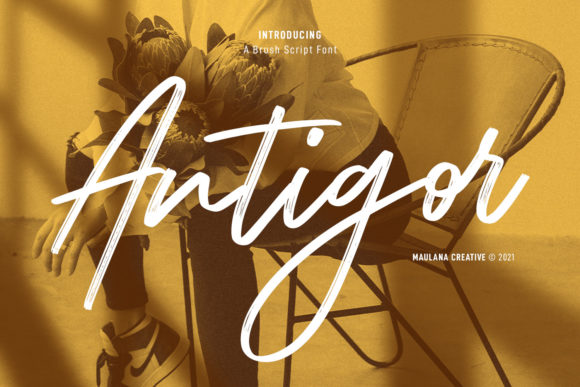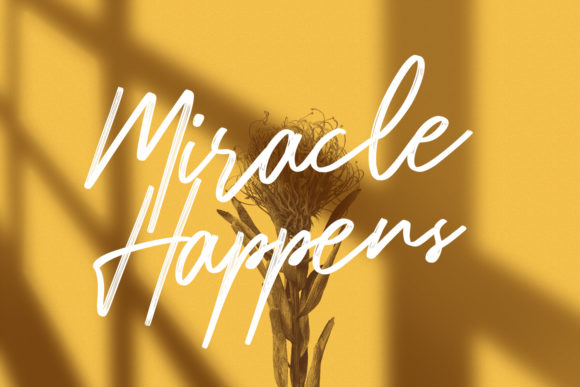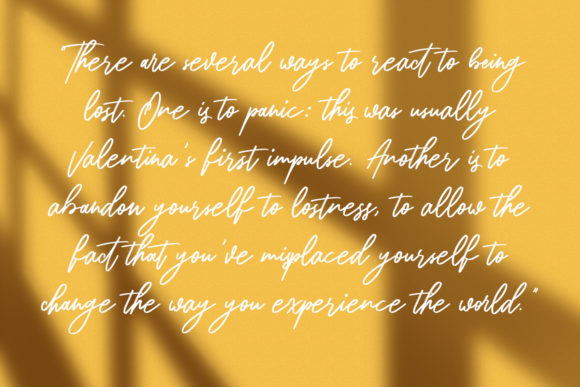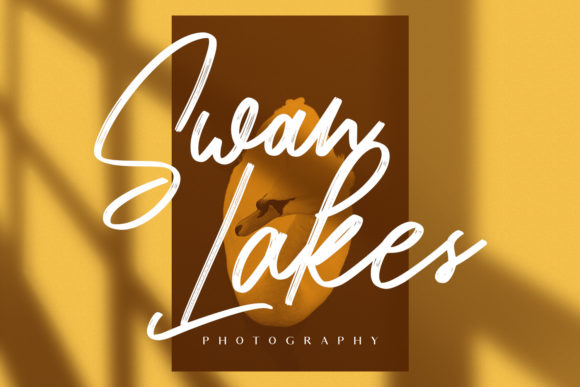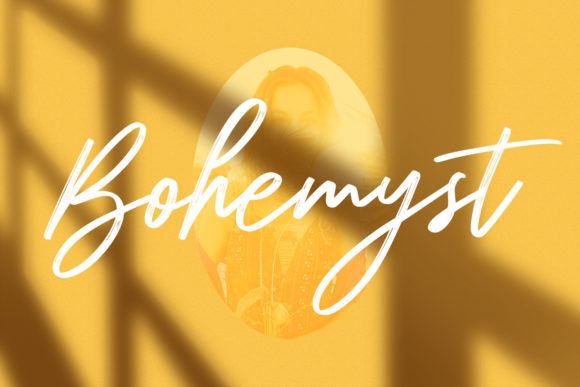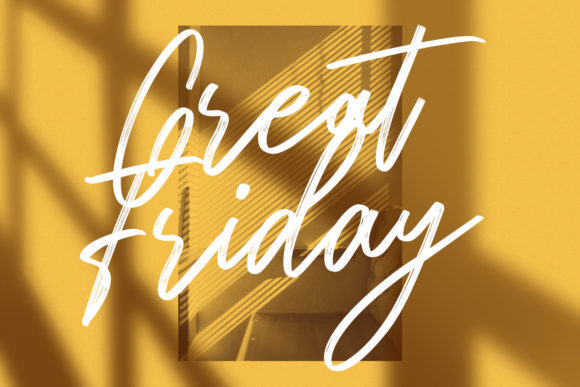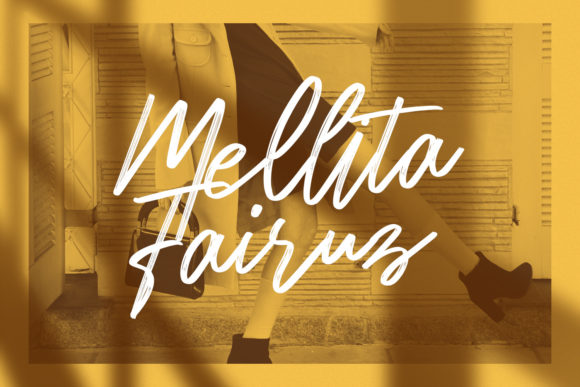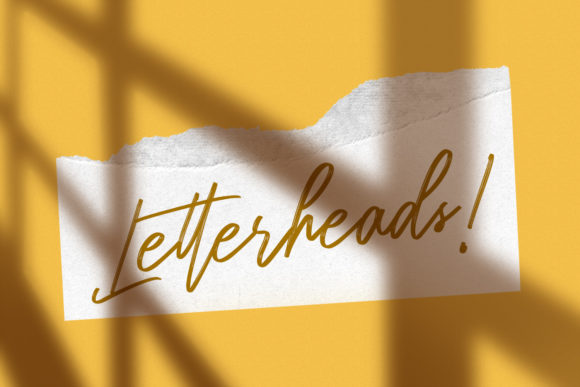
Antigor Font
About Antigor Font
Antigor is a modern script font perfect for logo design, social media posts, movie and book titles, and many more. Add it to any of your creative projects, and make stunning work with Antigor font!